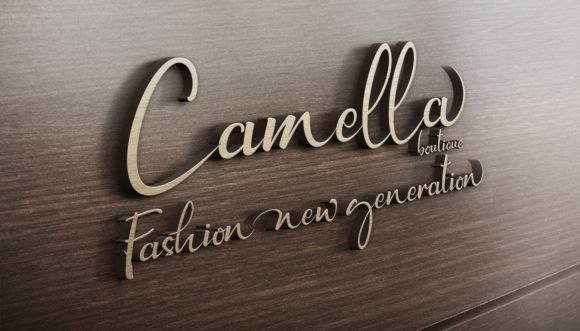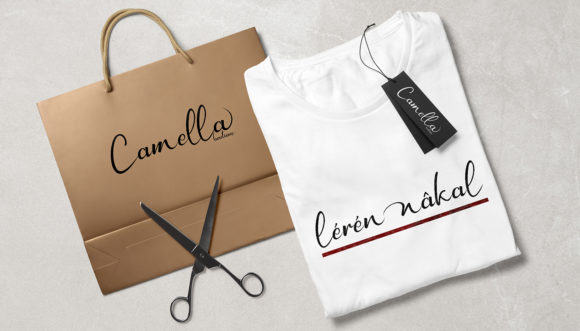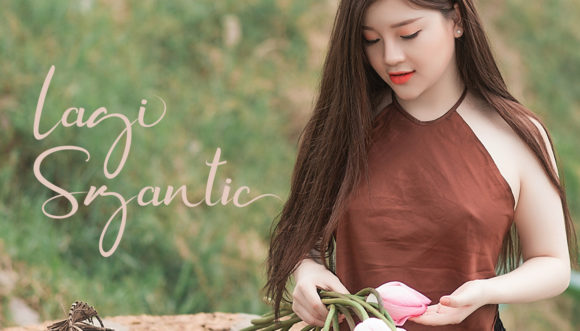
Introduction to Newyorka Night Font
Have you ever stared at a blank page, struggling to find the perfect font to bring your creative vision to life? It’s a moment we’ve all been there, designers and non-designers alike. But what if I told you that there’s a font that can take your designs to the next level? Enter the stunning Newyorka Night Font, a modern and elegant display font that’s about to become your new go-to design resource.
With its authentic feel and high-quality design, Newyorka Night Font is perfect for a wide range of creative projects, from beautiful stationery art to eye-catching social media posts. And the best part? It’s available for free download, making it an accessible and valuable resource for designers of all levels.
Key Features of Newyorka Night Font
- High-quality font with a transparent background, ideal for creative projects and designs.
- Available in 6 styles, each with a unique design and aesthetic, perfect for adding depth to your design resource.
- Supports a wide range of languages, making it a versatile design resource for global creative projects.
- Unique, eye-catching design that adds a touch of sophistication and elegance to any creative project.
Honest Review: Newyorka Night Font
I recently had the chance to work with the Newyorka Night Font and I must say it’s a great addition to any creative project. ✨ The high-quality design makes it perfect for use in graphics, logos, or even as a display font.
- What works well: The font has a unique, modern aesthetic that’s perfect for nighttime-themed designs. The transparent background option allows for seamless integration with any design element.
While the Newyorka Night Font is a solid choice, there are a few limitations to keep in mind. ⚠️ The font may not be suitable for large blocks of text, as the unique style can be overwhelming when used extensively.
Overall, I’m impressed with the Newyorka Night Font. It’s a great design resource that’s perfect for creative projects that require a touch of sophistication and modernity. If you’re looking for a high-quality font to add some flair to your designs, I’d definitely recommend giving it a try.
Tips for Getting the Most Out of Newyorka Night Font
To maximize the use of Newyorka Night Font, consider the following tips:
- Use a transparent background to make the font stand out.
- Combine the font with other design elements to create a visually appealing design.
- Experiment with different font sizes and styles to achieve the desired effect.
Common Use Cases for Newyorka Night Font
Newyorka Night Font is suitable for a range of creative projects, including:
- Designing posters and flyers.
- Creating social media graphics.
- Developing branding materials.
Yes, the Newyorka Night Font is fully customizable, allowing you to adjust the font size, color, and other settings to suit your project’s specific needs. You can use the font in combination with other design elements to create a unique and eye-catching visual identity for your brand or creative project.